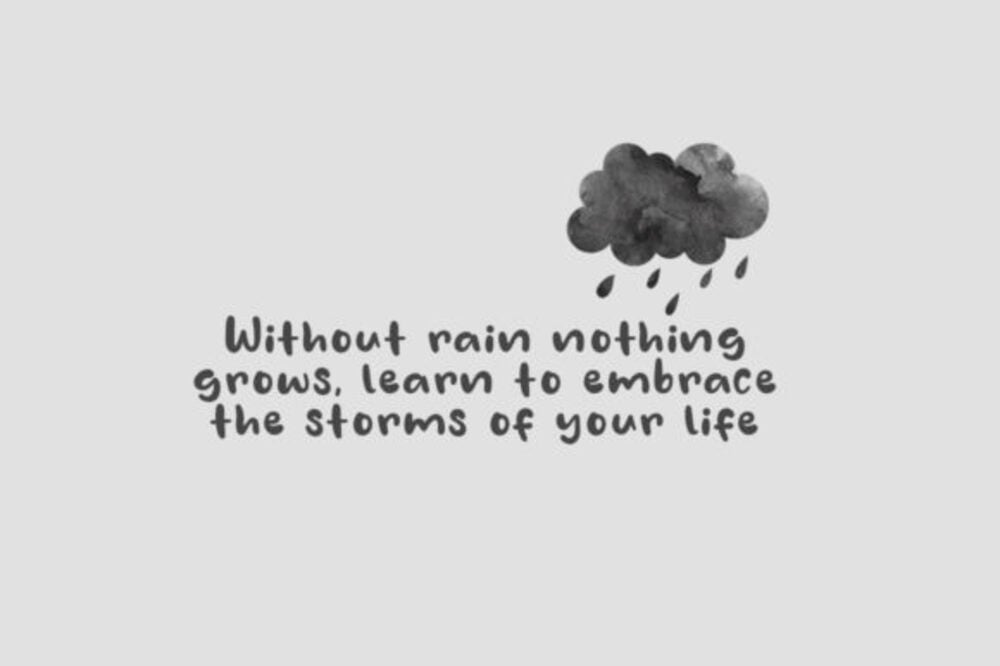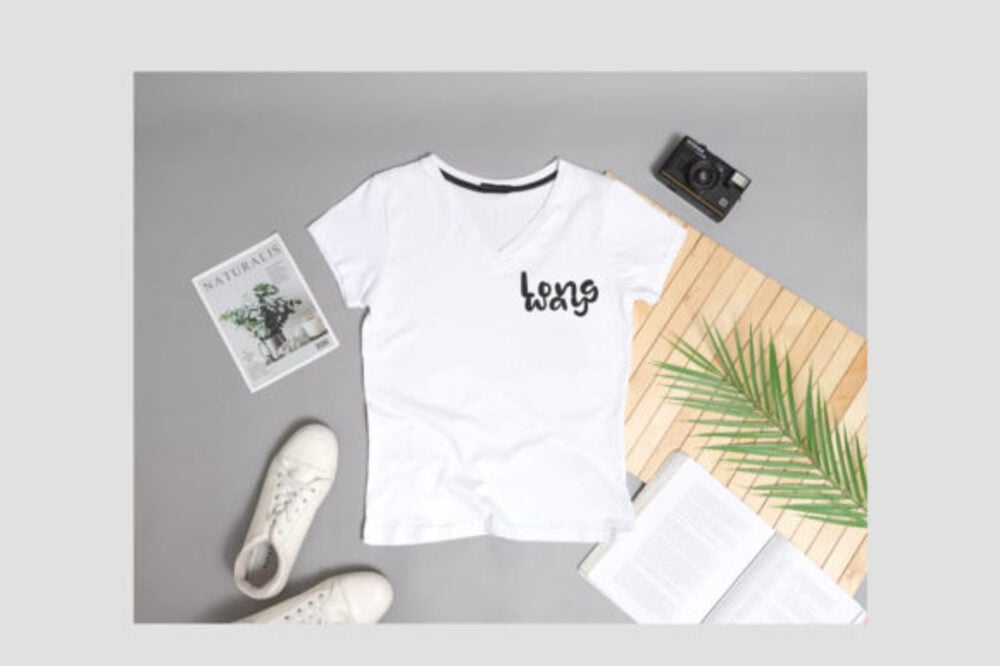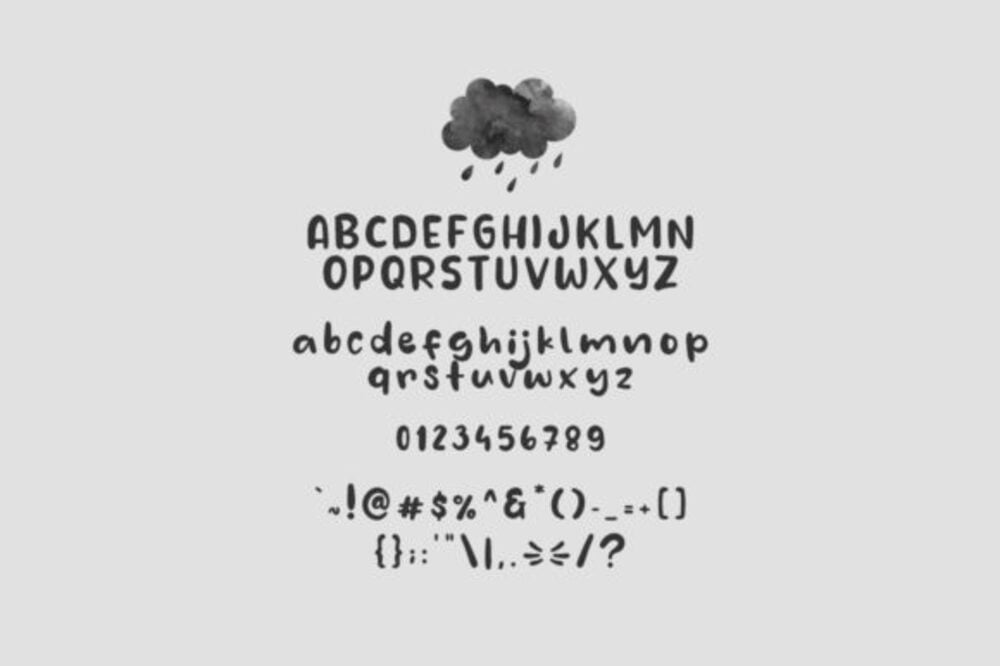
Hujan Font
Hujan Font is a unique and artistic typeface inspired by the flowing patterns of rainfall. Its elegant curves and gentle, organic design make it perfect for projects that aim to evoke calmness and beauty, such as greeting cards, invitations, and creative branding. The distinctive letterforms of Hujan Font bring a sense of movement and fluidity, adding a creative and refreshing touch to any design.